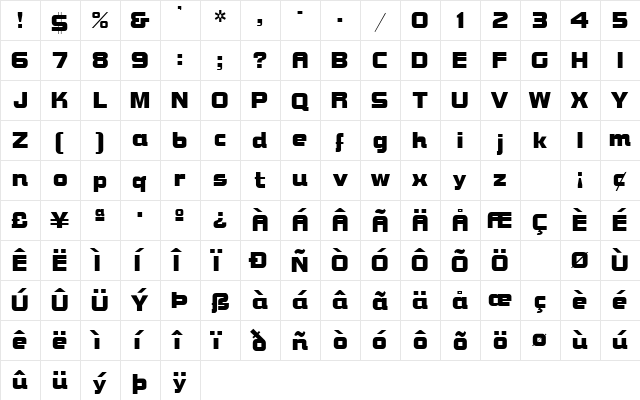
BolsterBold Bold
Design Context for BolsterBold Typeface
BolsterBold is a composed and adaptable typeface that performs quietly and consistently across a wide range of design contexts. The heavy weight commands attention and anchors typographic hierarchies.